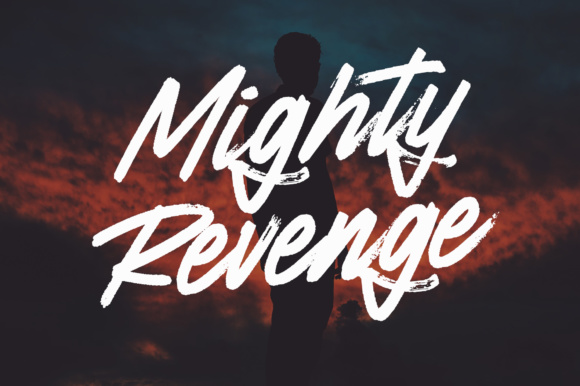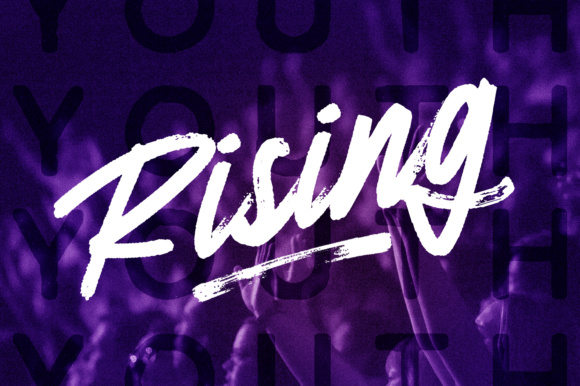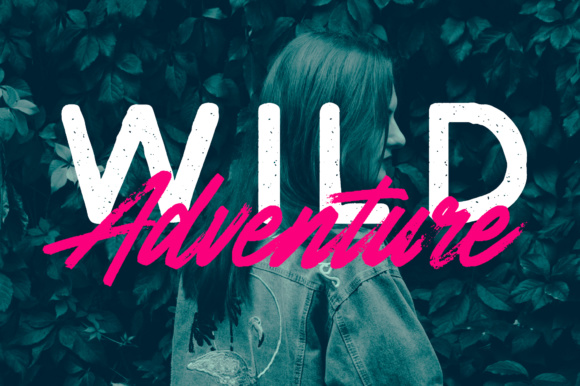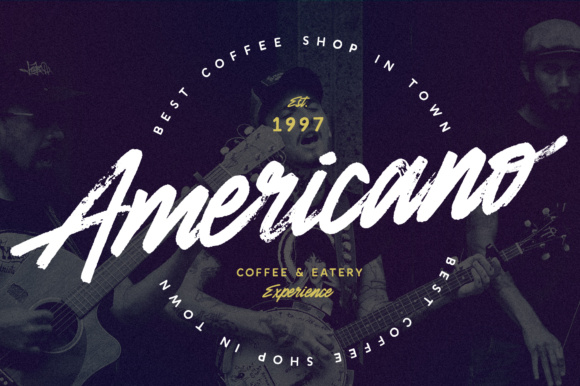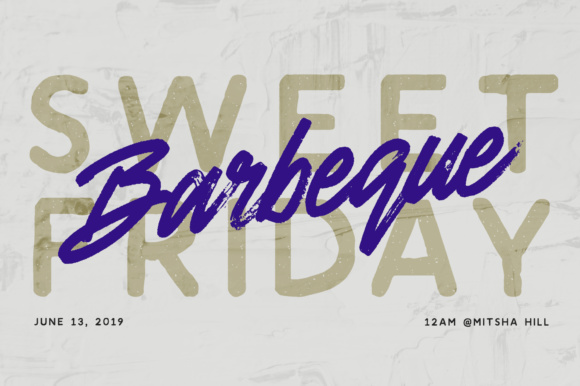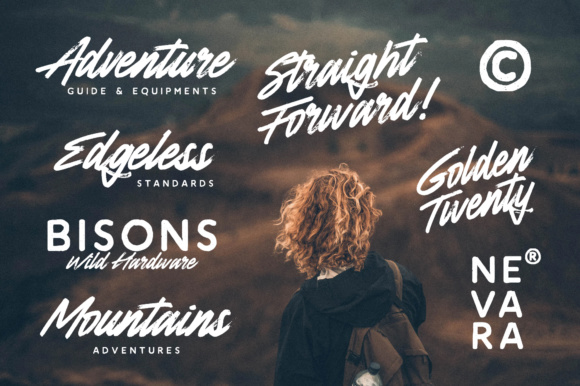
Introducing the Amnesty Font Duo: A Perfect Blend of Rustic Charm and Modern Flair
Are you tired of using the same old fonts for your design projects? Look no further! The Amnesty font duo is here to shake things up with its unique blend of rustic charm and modern flair. This fun font family consists of a hand-written font that’s full of passion and spirit, making it perfect for a wide range of projects. In this article, we’ll dive deeper into the world of Amnesty font and explore its features, uses, and benefits.
The Amnesty Font: A Rustic Hand-Written Font with a Modern Twist
The Amnesty font is a beautifully crafted hand-written font that’s designed to add a touch of personality to your designs. Its rustic charm is balanced with dynamic modern looks, making it versatile enough to be used for various types of projects, from branding and packaging to social media graphics and more. The font’s expressive nature makes it perfect for designers who want to add a human touch to their work.
Meet Amnesty Sans: The Perfect Complement to Amnesty Font
The Amnesty font duo doesn’t just stop at the hand-written font. It also comes with Amnesty Sans, a clean and modern sans-serif font that’s designed to complement the hand-written font perfectly. The sans font comes in two variations: Regular and Stamp. The Regular version is perfect for body text and other written content, while the Stamp version adds a fun and playful touch to your designs.
Key Features of the Amnesty Font Duo
- Hand-written font with rustic charm: The Amnesty font is a beautifully crafted hand-written font that’s full of personality and character.
- Dynamic modern looks: The font’s modern design makes it perfect for a wide range of projects, from digital designs to print materials.
- Comes with Amnesty Sans: The sans font is a perfect complement to the hand-written font, providing a clean and modern contrast.
- Two variations of Amnesty Sans: The Regular and Stamp versions of Amnesty Sans offer flexibility and versatility in your designs.
Uses of the Amnesty Font Duo
The Amnesty font duo is incredibly versatile and can be used for a wide range of projects, including:
- Branding and packaging: The Amnesty font duo is perfect for creating unique and memorable brand identities.
- Social media graphics: The font’s playful and expressive nature makes it perfect for social media graphics, from Facebook posts to Instagram stories.
- Invitations and greeting cards: The hand-written font adds a personal touch to invitations and greeting cards, making them special and unique.
- Digital designs: The Amnesty font duo can be used for digital designs, such as website headers, email newsletters, and more.
Benefits of Using the Amnesty Font Duo
So, why should you choose the Amnesty font duo for your next project? Here are just a few benefits:
- Unique and memorable designs: The Amnesty font duo helps you create unique and memorable designs that stand out from the crowd.
- Flexibility and versatility: The font duo can be used for a wide range of projects, making it a great addition to your font library.
- Easy to read and understand: The Amnesty font is designed to be easy to read and understand, making it perfect for body text and other written content.
The Amnesty font duo is a powerful tool for designers and crafters who want to add a touch of personality to their work. With its unique blend of rustic charm and modern flair, this font duo is perfect for a wide range of projects. Whether you’re creating branding materials, social media graphics, or invitations, the Amnesty font duo is sure to impress. So why not give it a try and see the difference it can make in your designs?